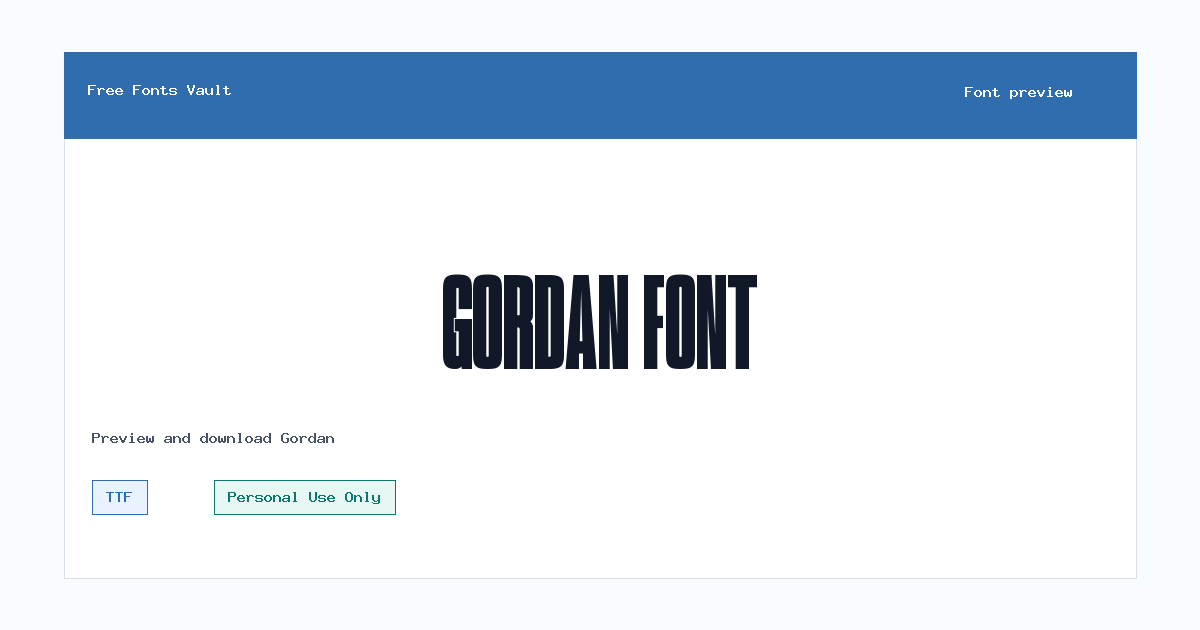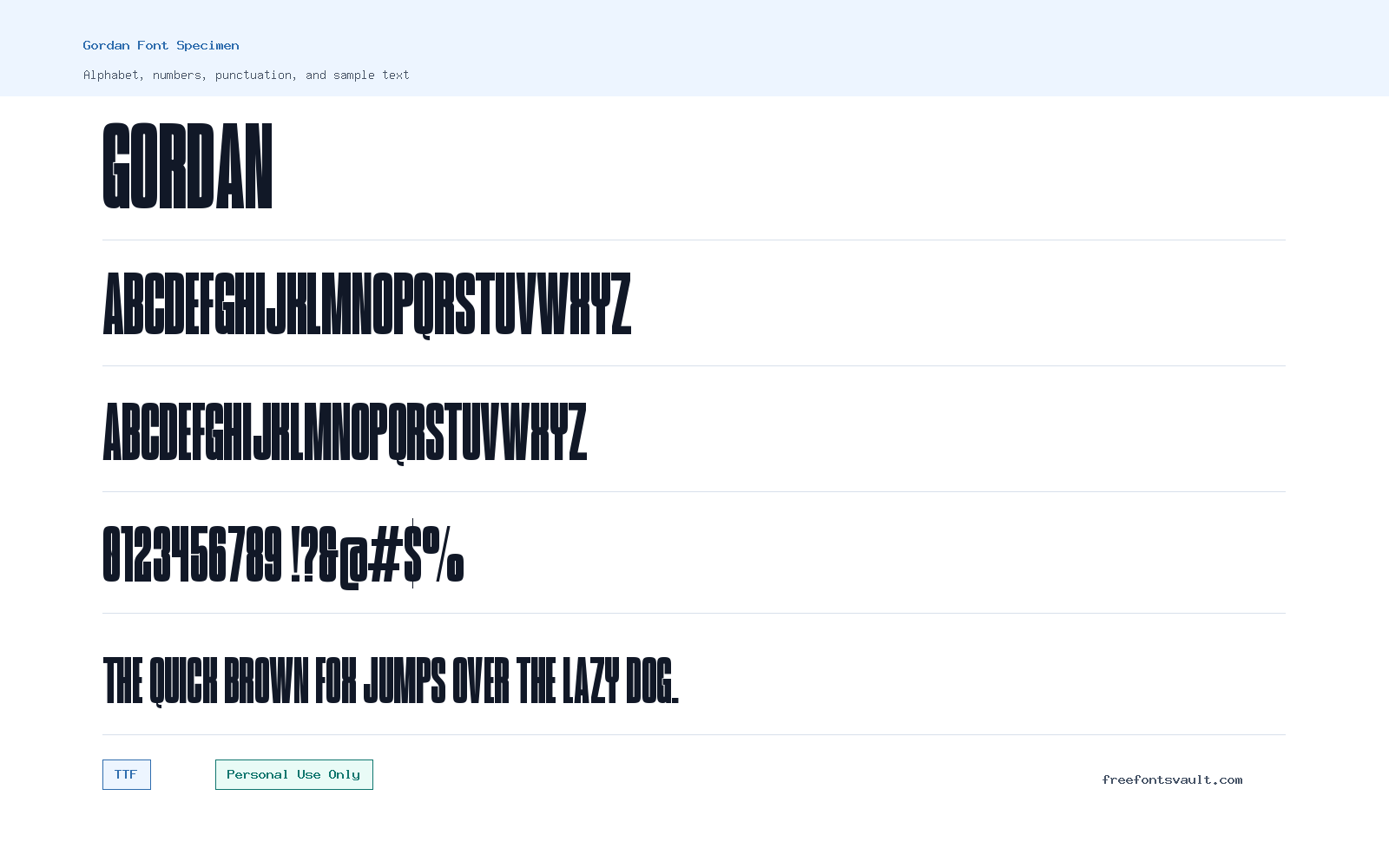
Gordan
Gordan font.
Gordan is a personal-use sans serif font from Funtype Co. It is a practical choice to test when you need clean, direct lettering for titles, mockups, posters, social graphics, and display-focused design ideas.
About Gordan Font
Gordan is presented as a sans serif font family with a regular TTF style. That makes it easy to install in most common design apps and test in a font preview before using it in a project. Since the available style is a normal-weight regular cut, it works best when you want a straightforward base style rather than a large family with many weights. Try it first in short words, brand-name tests, poster headings, and layout mockups where the letter shapes can be judged at a larger size.
For logo work, Gordan can be useful during the concept stage if you are exploring a simple sans serif direction. Type the exact name, initials, or headline you plan to use, then check spacing, uppercase forms, lowercase rhythm, and how the letters look beside icons or marks. For posters and social graphics, test it at large sizes with generous spacing and strong contrast. For web mockups, use it in hero headings, navigation studies, call-to-action text, or visual comps, but remember that a single regular style may limit how much hierarchy you can build without changing size, color, or layout.
Because only one regular TTF file is listed, Gordan is better treated as a focused display or headline option than a complete text system. It may work for short labels or interface mockups, but long paragraphs usually need a typeface with more weights, italics, and spacing options. If you use Gordan for a title, pair it with a calmer text face for body copy. A neutral serif can add contrast, while a simple humanist or grotesque sans serif can keep the layout clean. Avoid pairing it with another attention-grabbing display font unless the design intentionally needs a louder look.
- Sans serif font style suited to clean display text, mockups, and short-form design testing.
- Single normal-weight style, useful for straightforward headlines and layout concepts.
- Good candidate for testing brand names, poster titles, social graphics, and web hero text before choosing a final type system.
- Personal poster designs and typographic practice pieces
- Logo concept exploration and brand-name mockups
- Social media graphics, quote cards, and simple title layouts
- Website hero section mockups and navigation studies
- Short headings, labels, and presentation titles
- Testing a clean sans serif direction before committing to a commercial font
Gordan is credited to Funtype Co., which is also listed as the foundry.
What kind of font is Gordan?
Gordan is described as a sans serif font. It is best tested in short display settings such as headings, posters, logo concepts, and mockups.
Who designed Gordan?
The font is credited to Funtype Co.
Is Gordan good for body text?
It may be possible for short text, but the listed family has only a regular style. For long reading, pair it with a dedicated body font that offers more weights and styles.
How should I pair Gordan with other fonts?
Use Gordan for the headline or main title, then choose a simple, highly readable body font. Keep the second font quieter so the layout does not feel crowded.